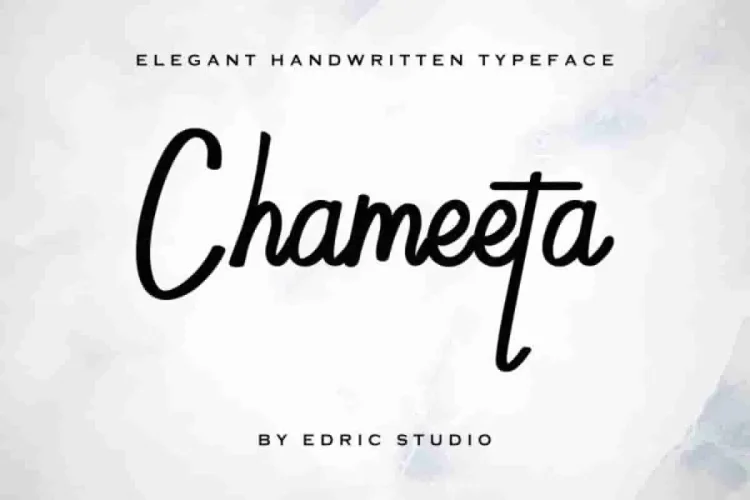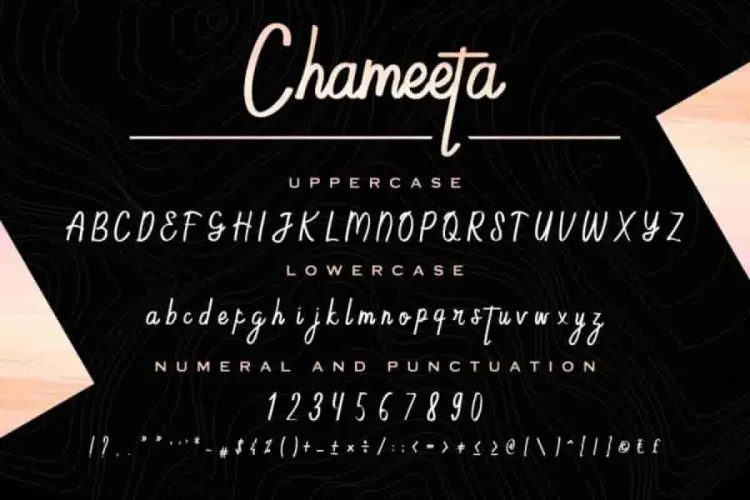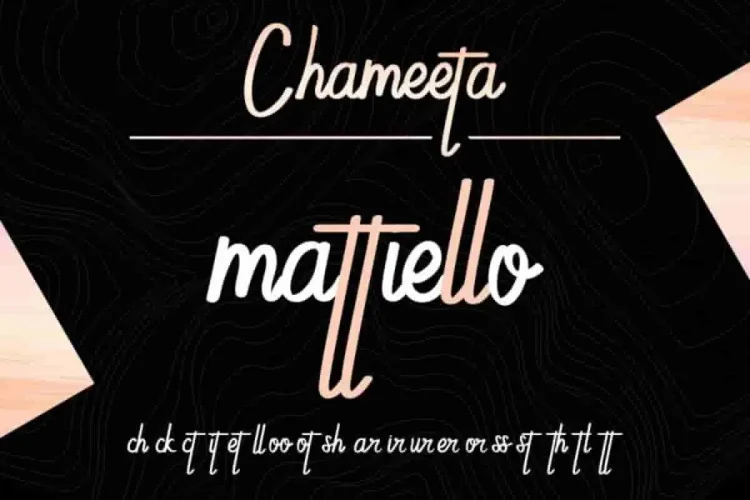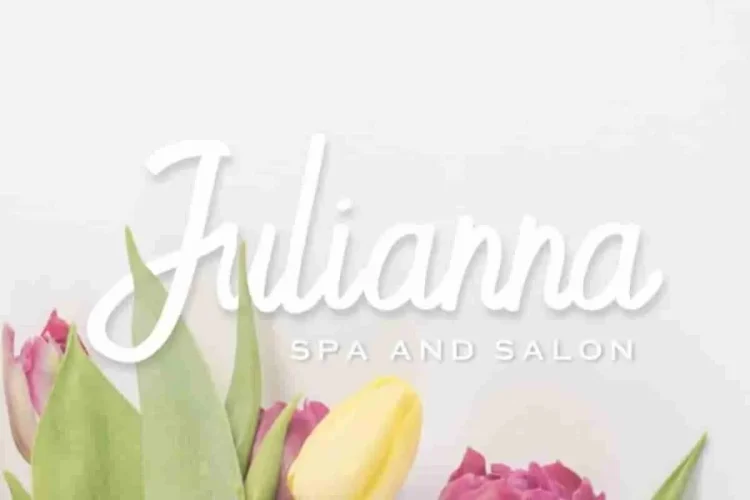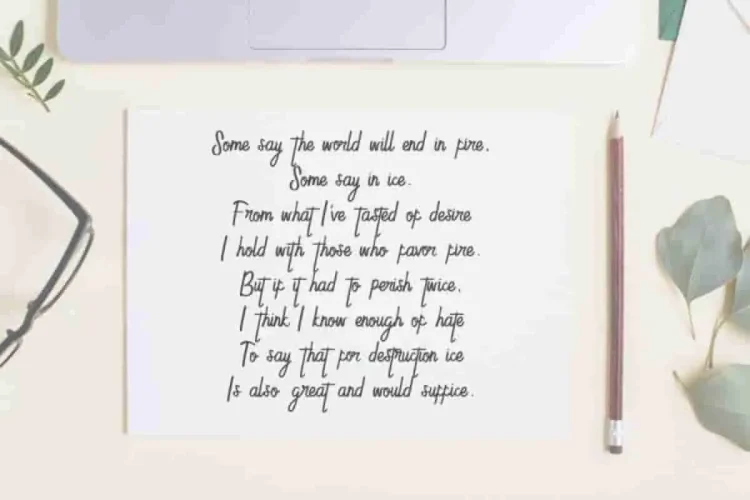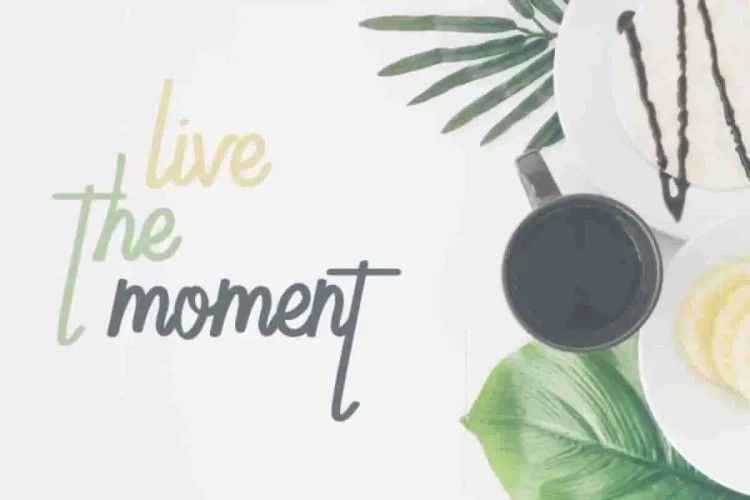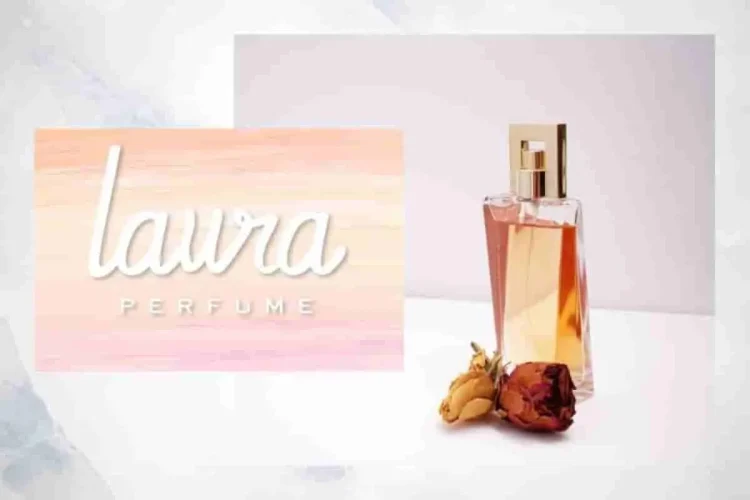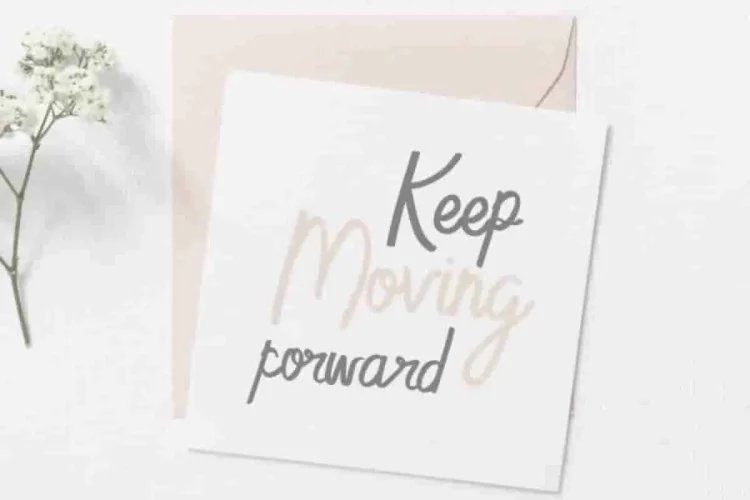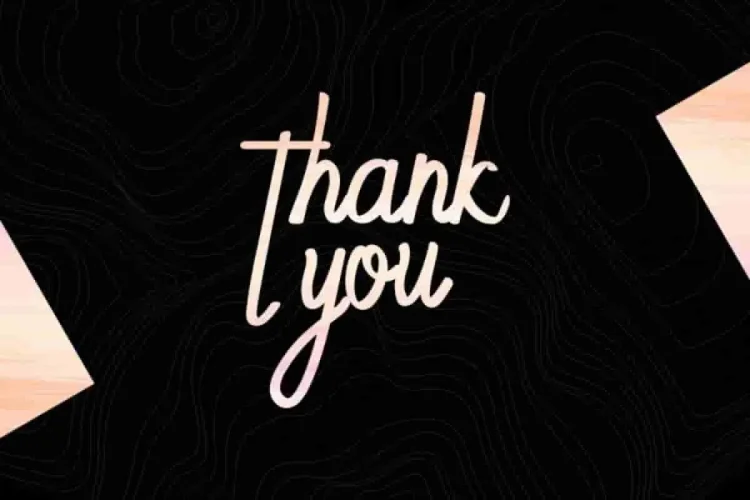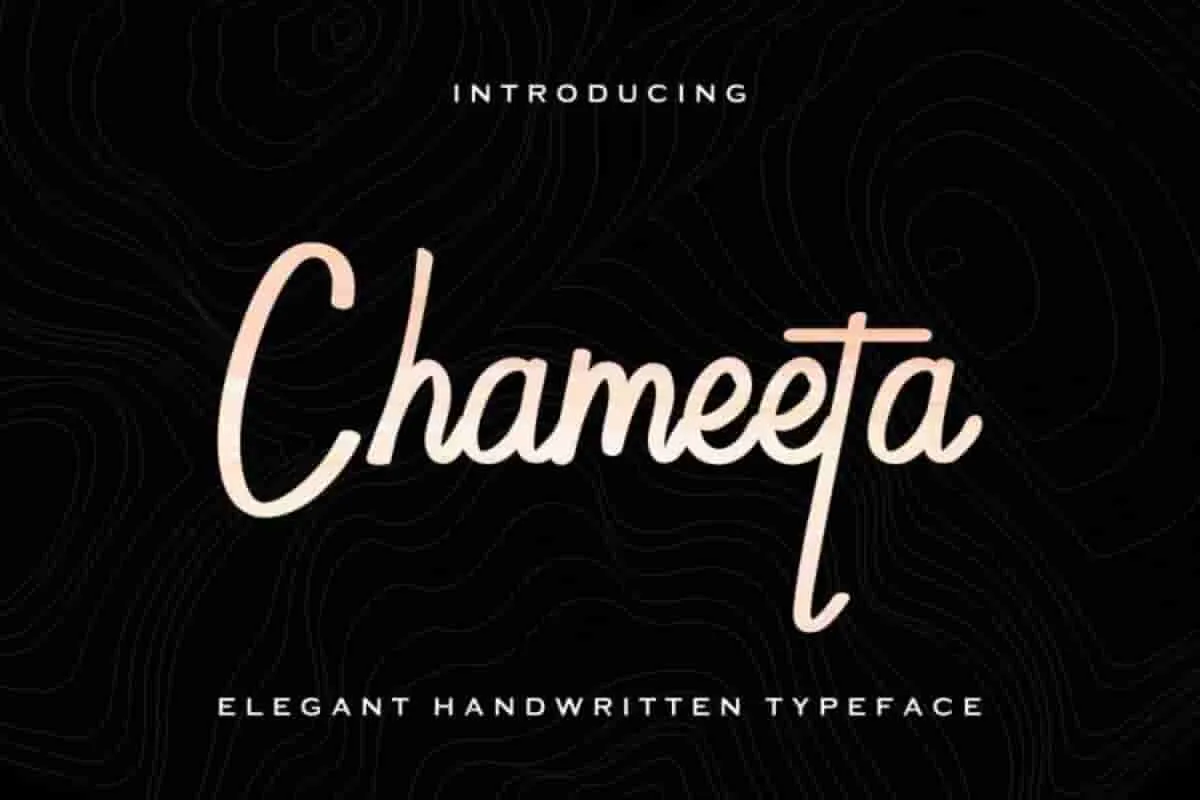
Chameeta Handwritten Typeface Font
Chameeta Handwritting Font
Chameeta Demo
We, Edric Studio Presents to you :  Chameeta Font!
This calligraphy script font family comes to life with love and integrity, crafted in West Java, Indonesia.
Chameeta Font was made in 2019. Moreover, this font has stunning glyphs/Characters. It also support multi international languages letters.
In addition, Chameeta Font has many alternate glyphs. Furthermore, it works seamlessly with the OpenType feature. It will surely increase the possibility of creations and variation, so you can explore further more and make more creative things.